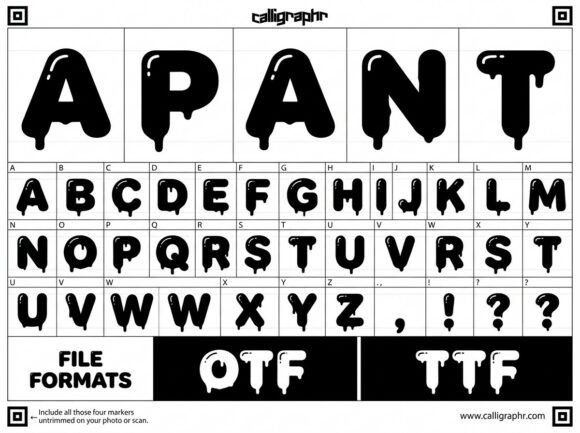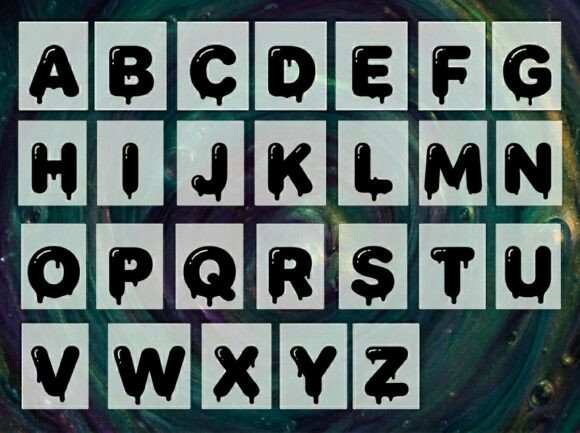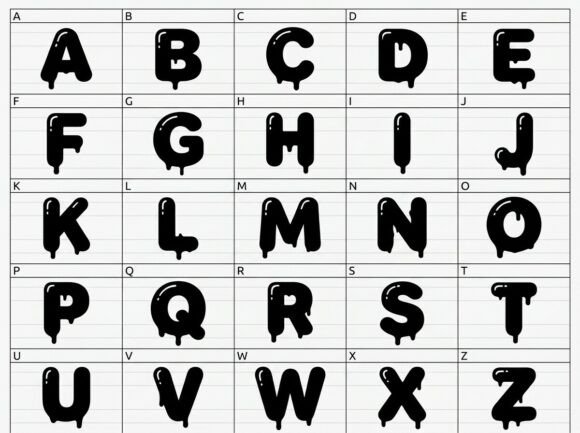
Unlocking Creative Potential with Apant Font
Today, I’m excited to share with you a similar treasure: the Apant Font. Designed to be the centerpiece of any layout, Apant Font brings a distinct artistic flair and strong character that’s perfect for creators looking to break away from the ordinary.
What Makes Apant Font Stand Out?
Apant Font is more than just a decorative display font; it’s a tool designed to deliver a high-end, professional aesthetic without compromising on personality. Here are some of its standout features:
- ✨ Distinct Artistic Elements: Its unique design ensures your creative projects stand out.
- ✅ Strong Character: Perfect for making bold statements in your designs.
- ⚠️ All-Caps Display Typeface: By design, it doesn’t contain lowercase letters, making it a powerhouse for logos, titles, and decorative initials.
Honest Review: The Good and the Quirks
Like any font, Apant has its loves and a few quirks:
- ✨ The font’s versatility in creating stunning headlines and titles.
- ✅ It adds a professional touch to branding and packaging designs.
- 💡 The ability to use it across various design platforms.
⚠️ One thing to keep in mind is that Apant Font is an all-caps display typeface. This means you’ll need to get creative with your design to incorporate it effectively.
While the origins of Apant Font are shrouded in mystery, one can imagine it was created by a designer with a passion for luxury and creativity. Perhaps inspired by the geometric patterns of art deco and the simplicity of modern design, the creator aimed to produce a font that could stand alone as a piece of art.
| Q: Does Apant Font include lowercase letters? | A: No, Apant Font is designed as an all-caps display typeface and does not include lowercase letters. |
| Q: Is Apant Font suitable for body text? | A: Due to its decorative nature, Apant Font is best used for headlines, titles, and decorative elements rather than body text. |
Apant Font is a powerful tool for any creator looking to add a touch of elegance and personality to their designs. With its distinct artistic elements, strong character, and versatility across platforms, it’s an excellent choice for a wide range of projects. Whether you’re a seasoned designer or a creative hobbyist, Apant Font can help elevate your work to new heights.